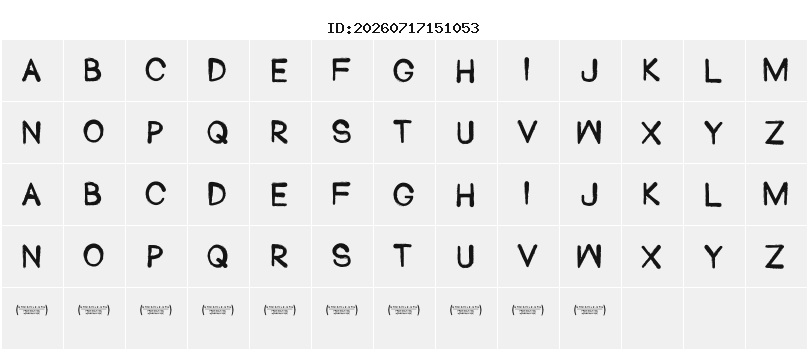
Blackhead Preview
• Font Name: Blackhead
• Designer: Chris Vile
• Manufacturer: Font Monger
• Description: Blackhead is a font by Font Monger, designed by Chris Vile in 2014.
About Blackhead.otf
Blackhead.otf is a modern, elegant sans-serif font designed for ultimate readability and visual harmony. Perfect for branding, headlines, web design, and print materials.